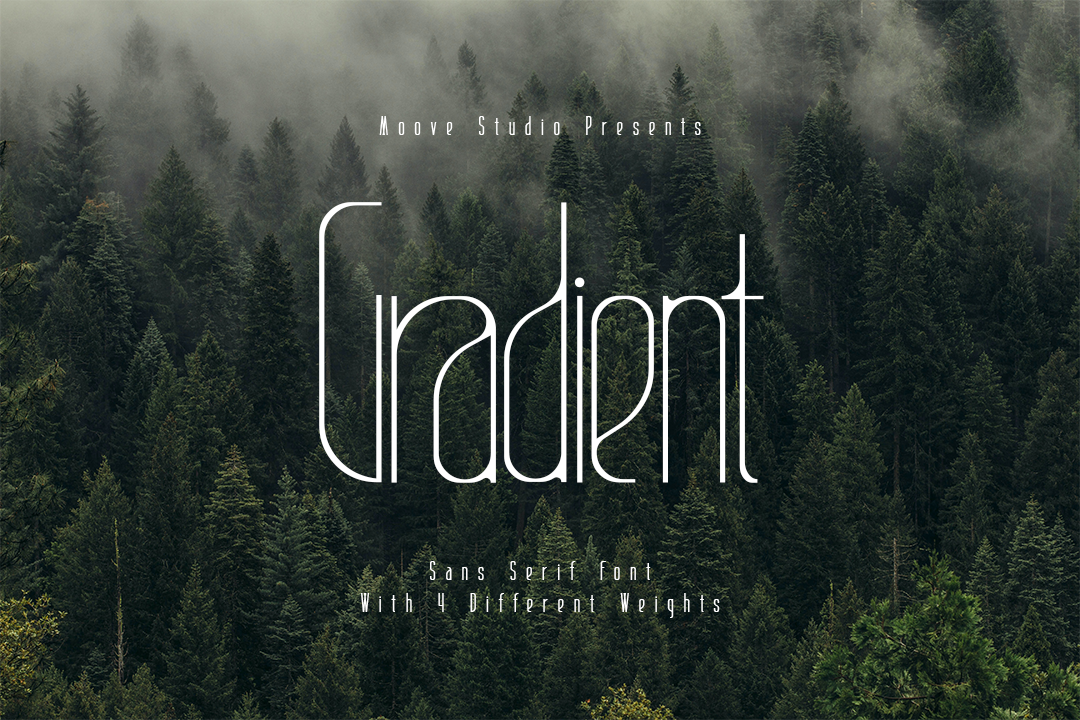
Gradient | Sans Serif Font
Hi! Introducing my newest font called Gradient.
Gradient is an elegant sans-serif font with four different thickness levels. Pour this font into your brilliant ideas such as business cards, business ideas, branding, articles, etc. With this font, you can make something more elegant and beautiful!